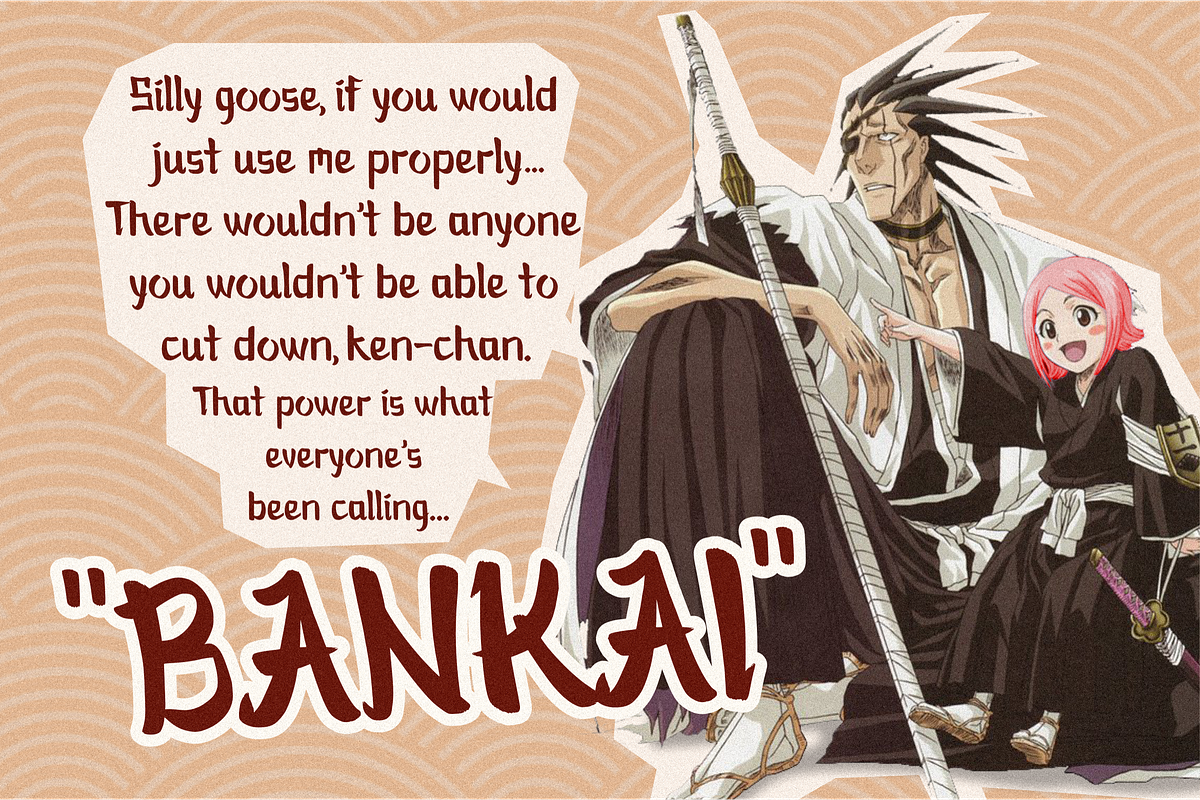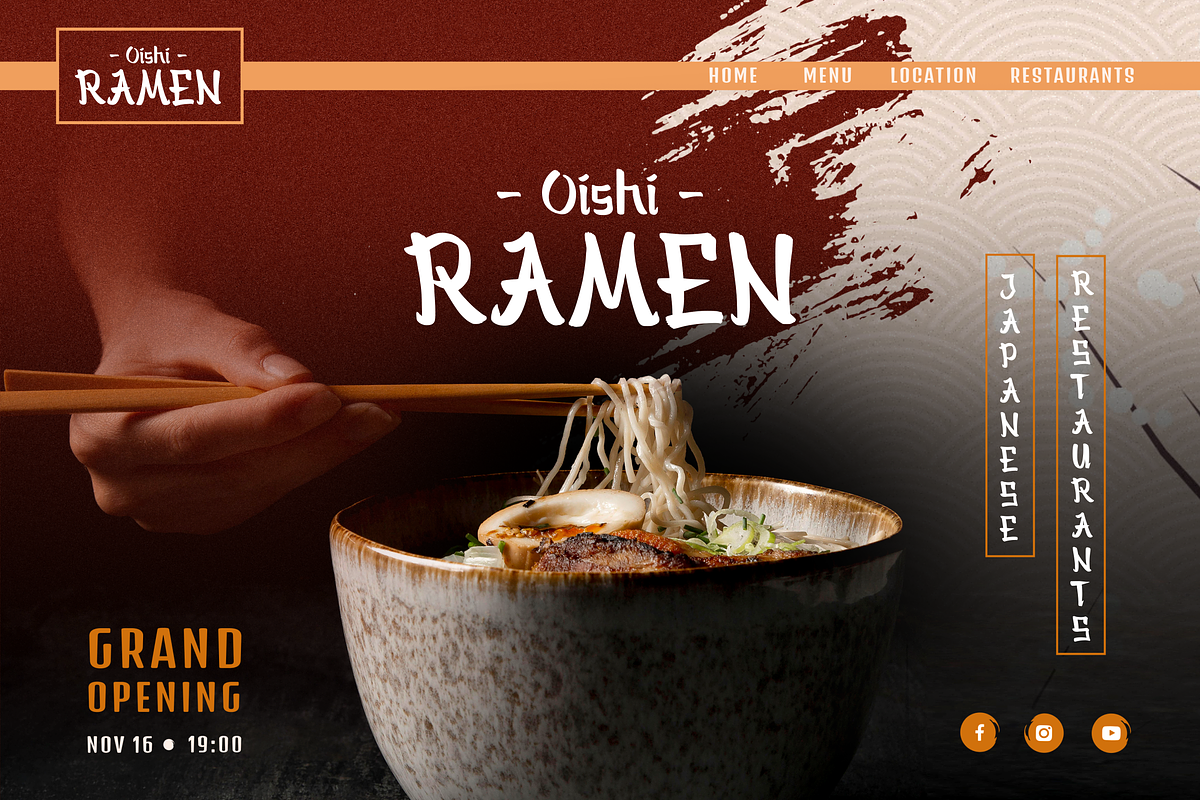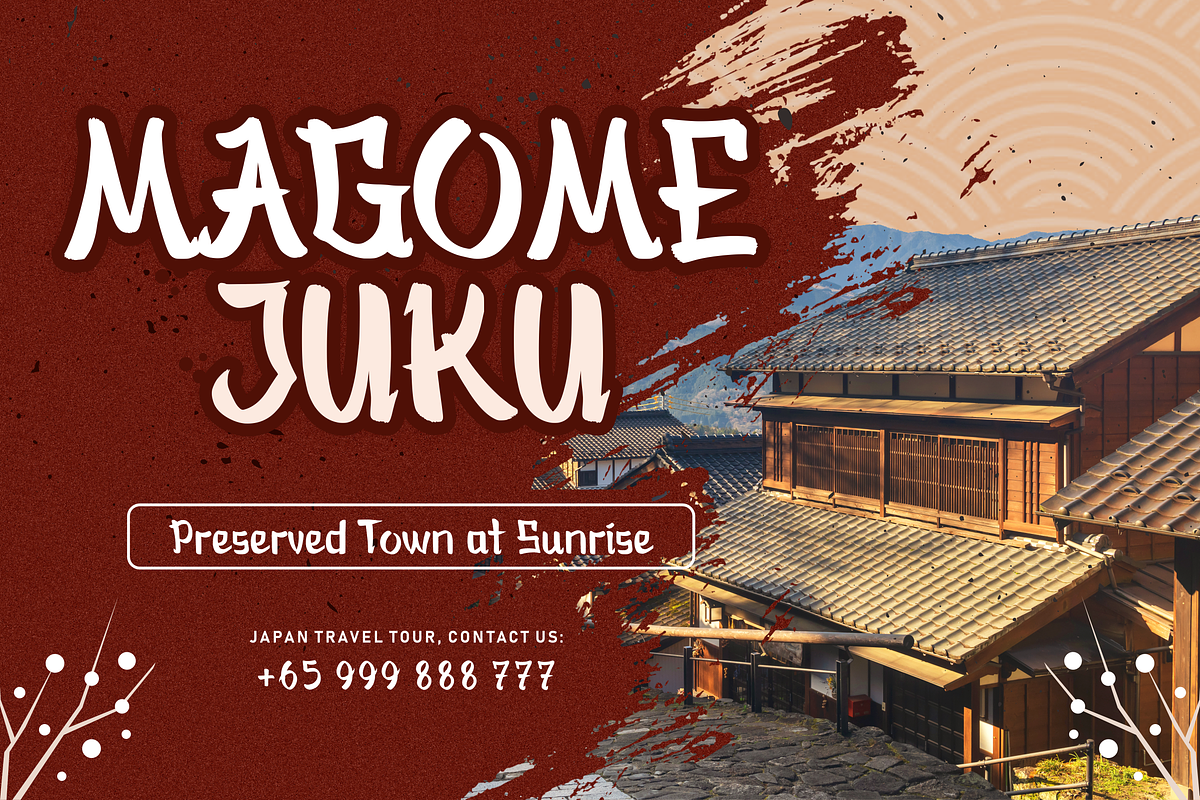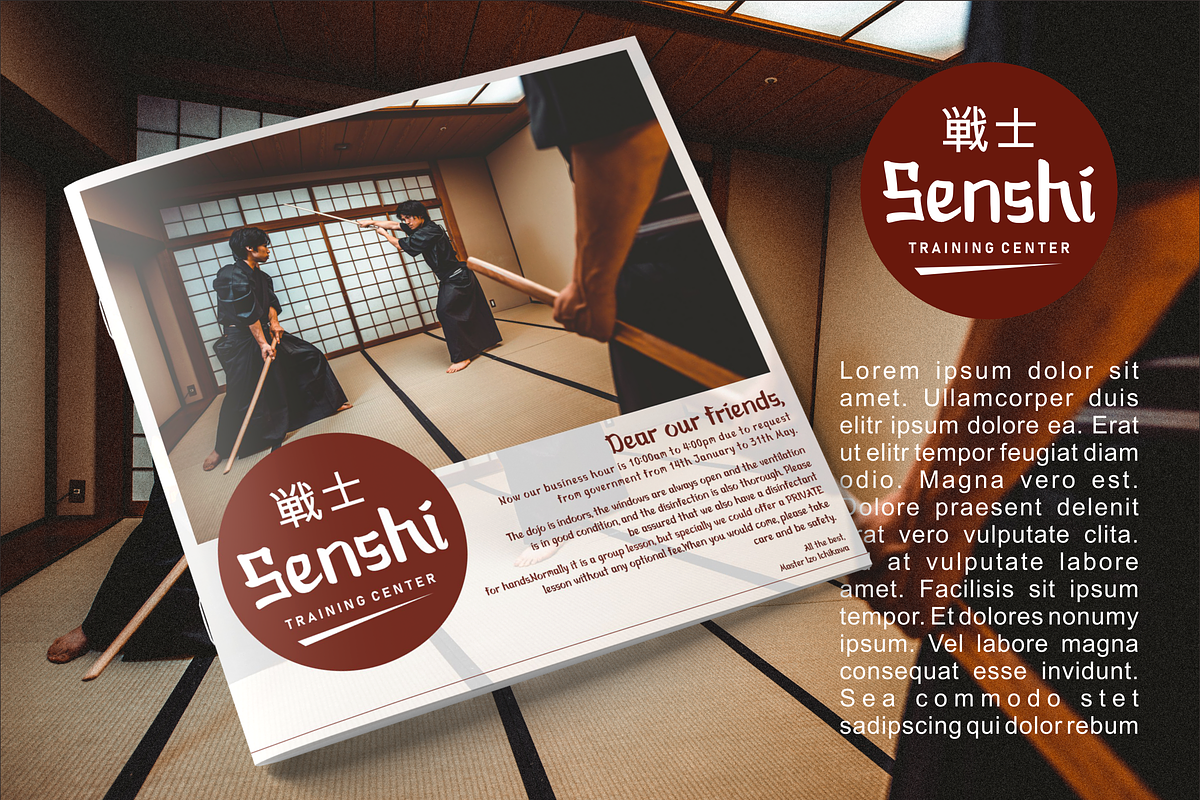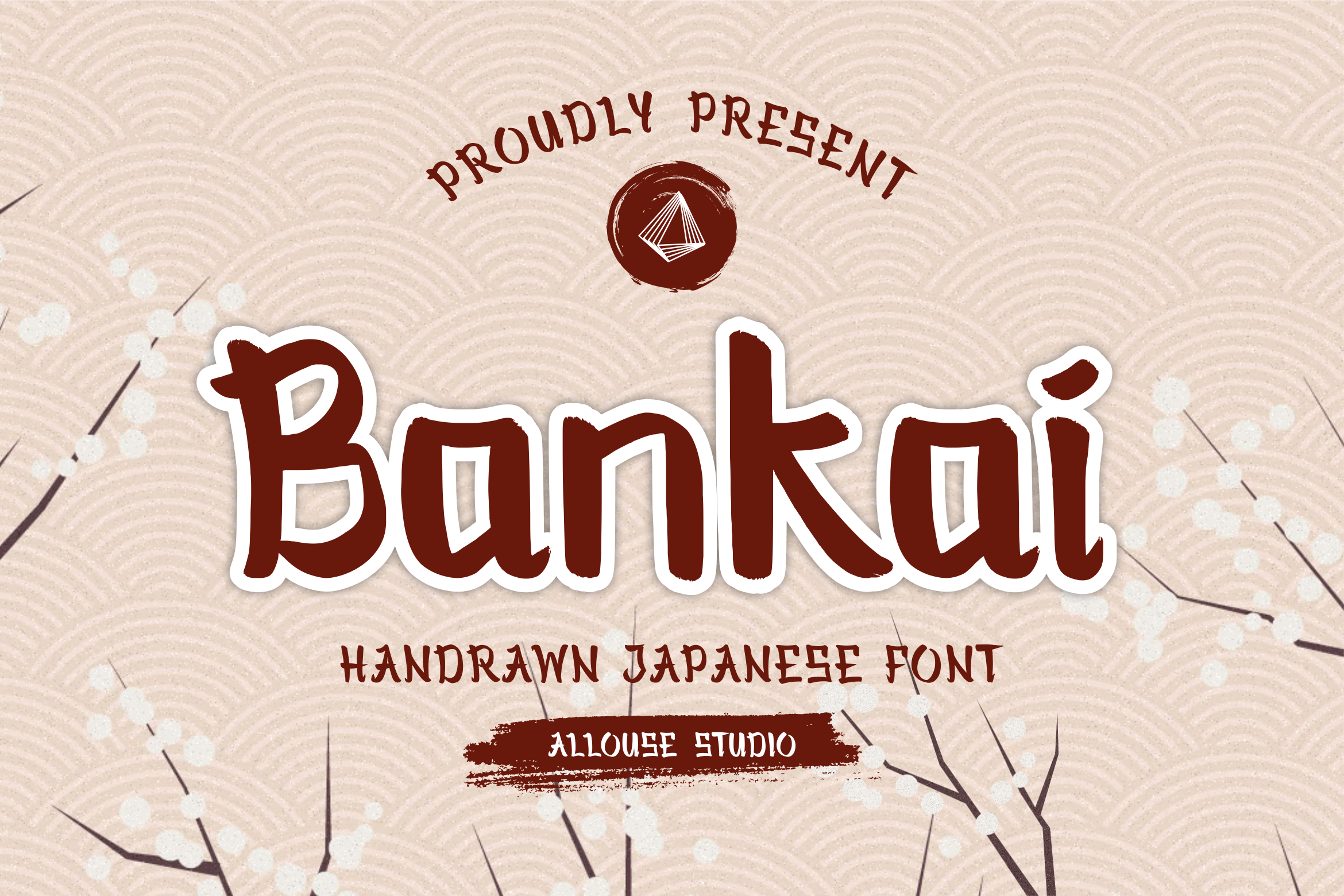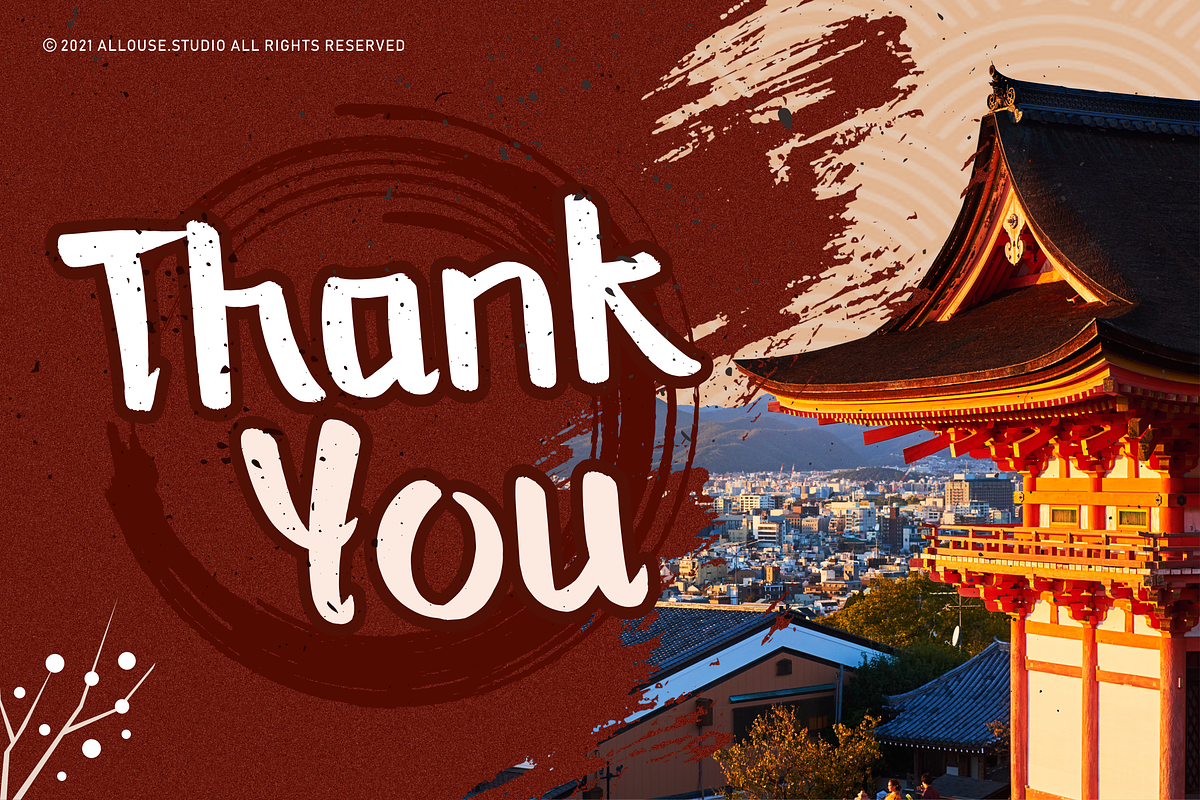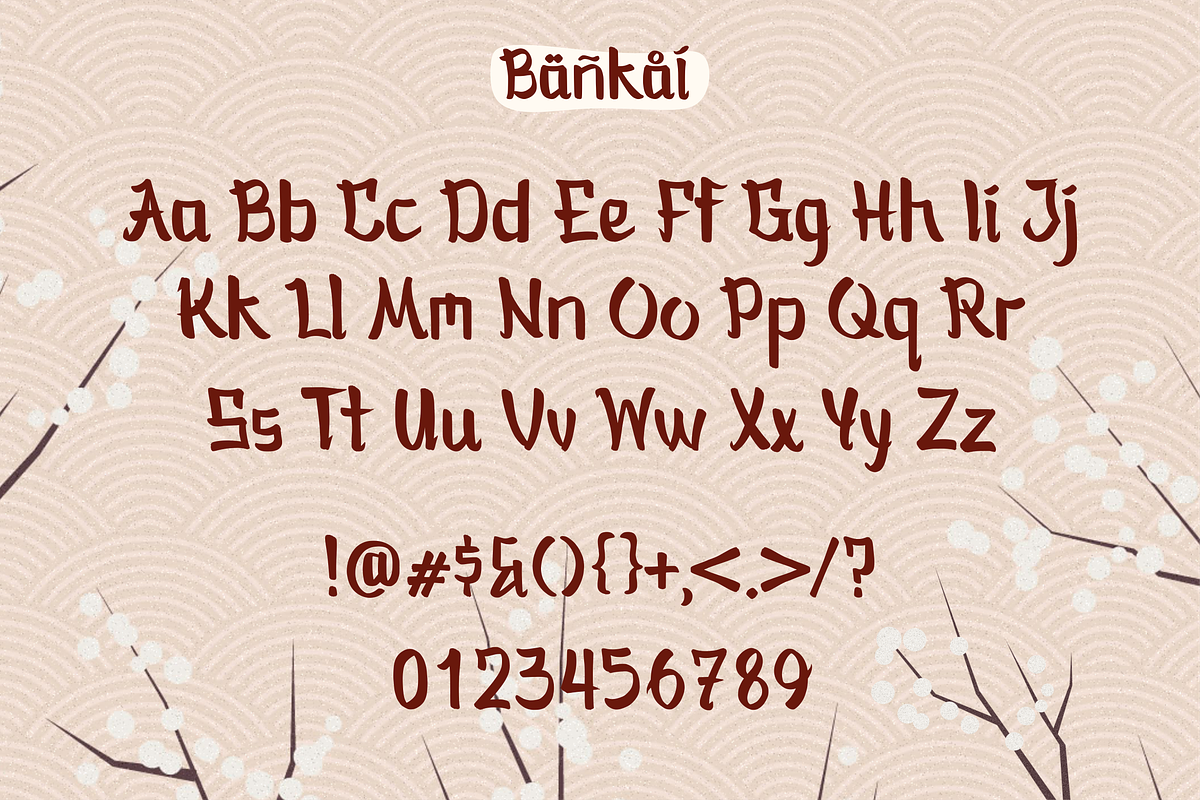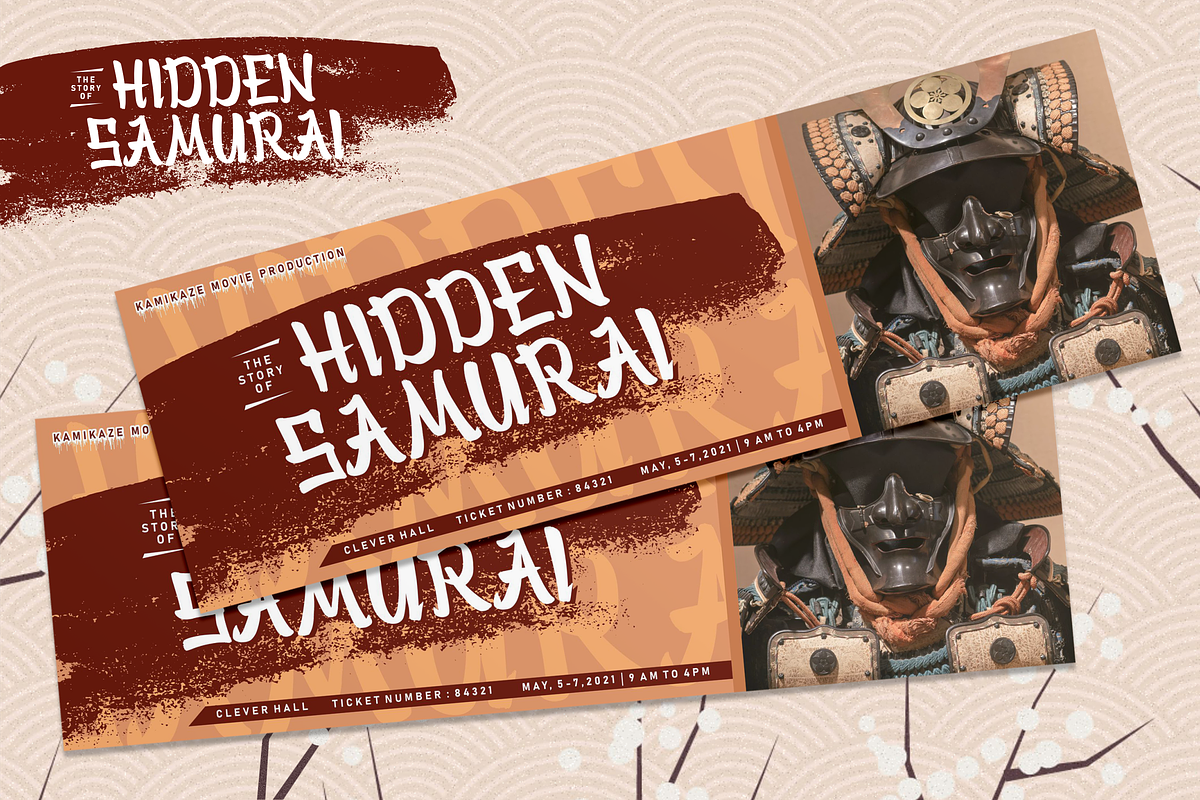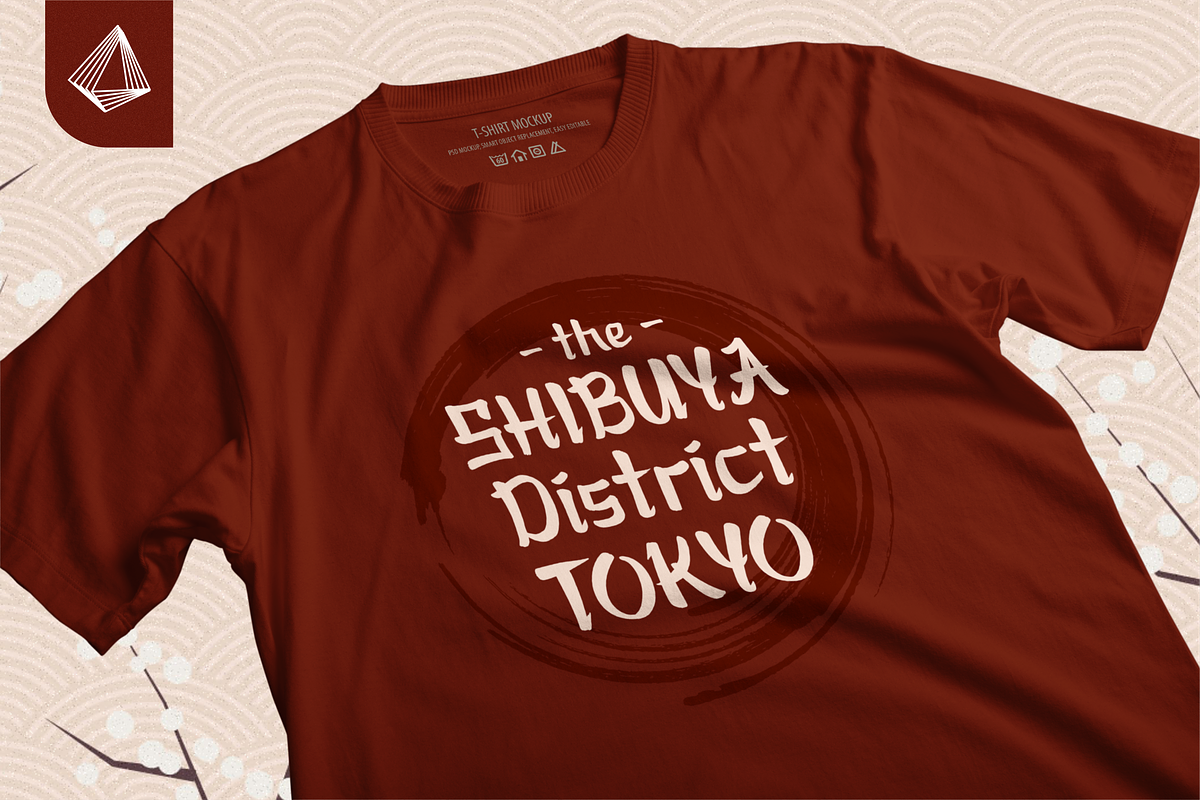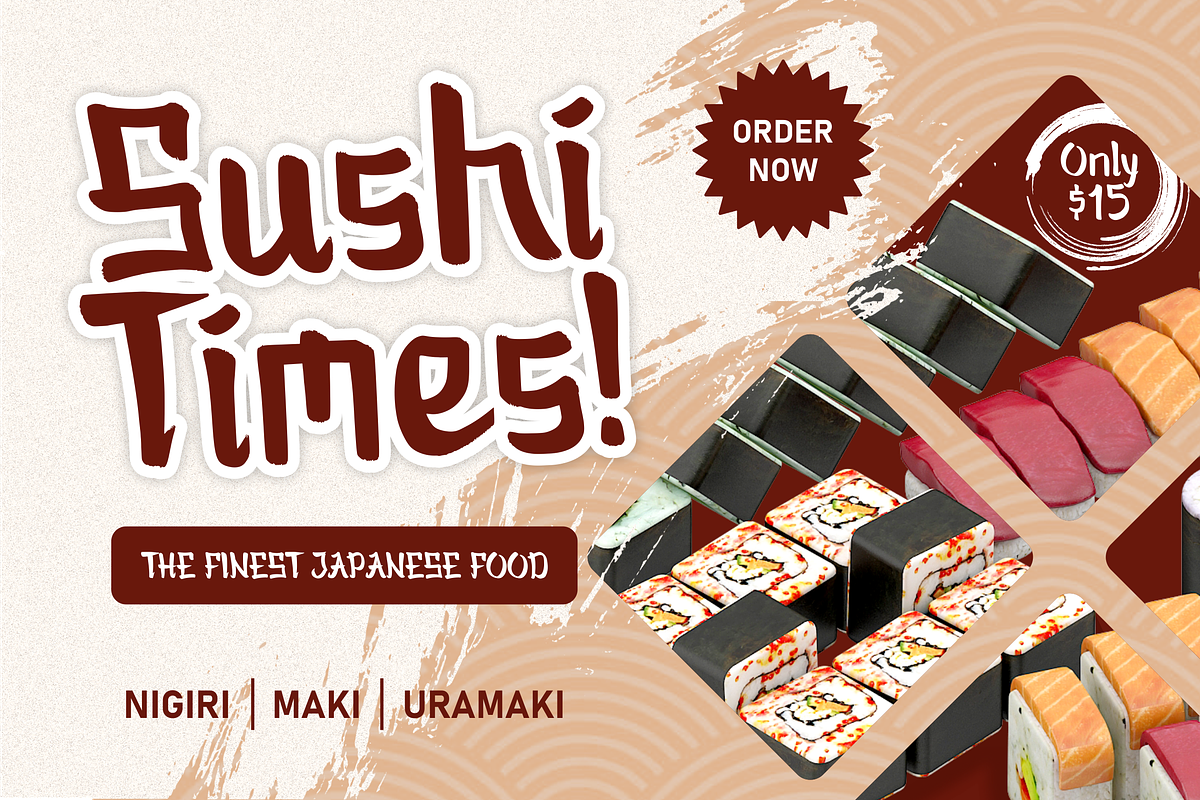
Bankai Font
Introducing by Allouse.Studio
Proudly Present, Bankai.
Bankai is a Handdrawn Japanese Font.
Bankai is perfect for product packaging, branding project, megazine, social media, wedding, or just used to express words above the background.